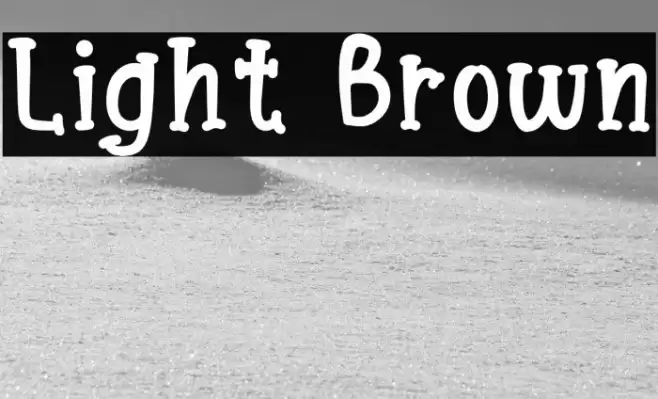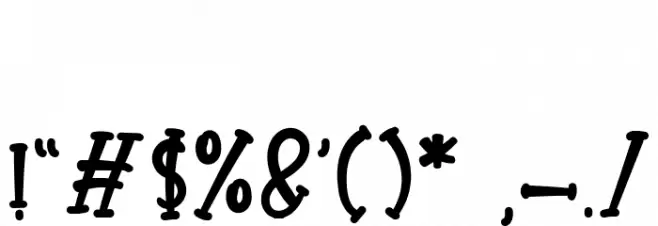
Light Brown Font
Light Brown Description
This font features a playful and whimsical style, characterized by its rounded and slightly irregular letterforms. The strokes are bold and consistent, giving it a strong presence while maintaining a friendly and approachable appearance. The uppercase and lowercase letters are well-balanced, with a slight tilt that adds to the font's quirky charm. The numerals and special characters follow the same design principles, ensuring a cohesive look across all elements. This font is ideal for projects that require a fun and informal touch, such as children's books, playful branding, or creative posters.
A playful and whimsical font with bold, rounded letterforms from Comic fonts.
- Proposed Projects: Children's books, playful branding, creative posters, informal invitations.
- Overall Style: Playful